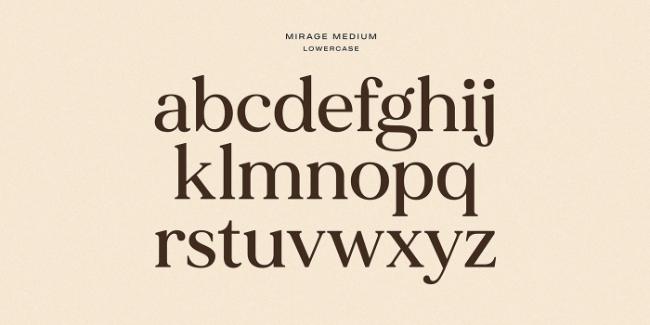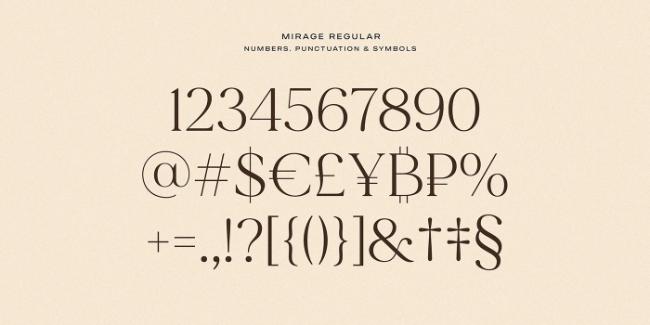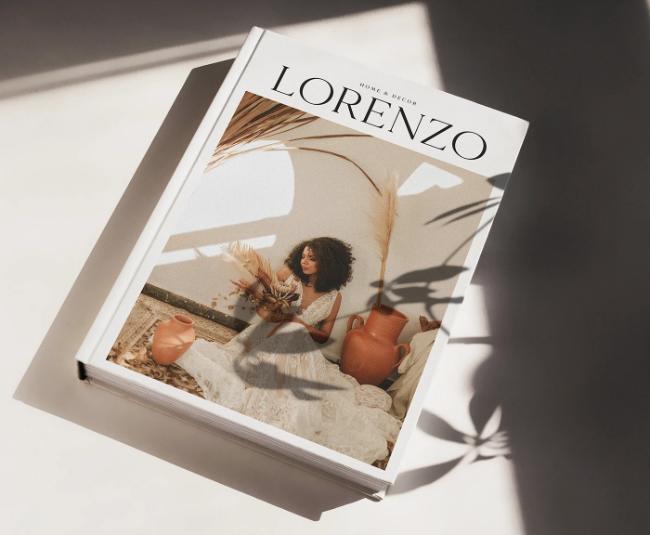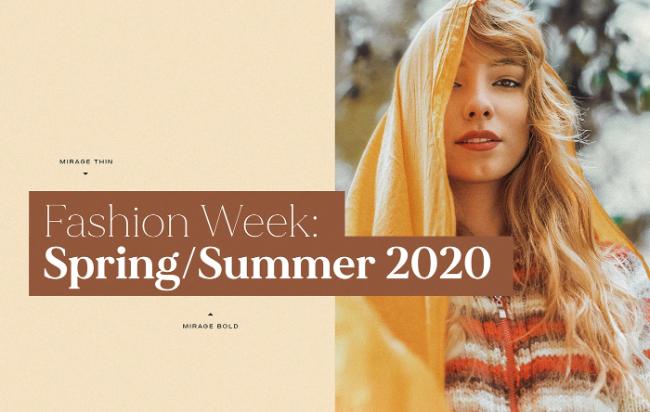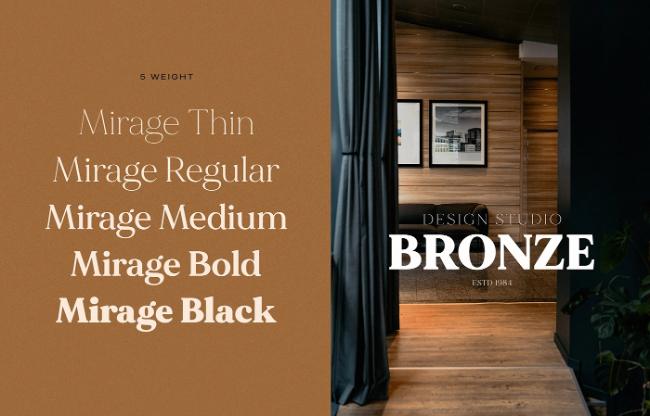
Mirage font is the perfect fusion of modern sophistication and timeless beauty, making it a favorite among designers seeking to elevate their work with subtle elegance. Whether you’re crafting high-end branding, editorial layouts, or wedding invitations, Mirage brings a luxurious feel with its graceful curves and refined letterforms.
Designed with attention to detail, Mirage is often described as a high-contrast serif or display typeface that balances classic calligraphy with contemporary flair. Its tall x-height, sharp serifs, and thin strokes lend it an air of professionalism, while still remaining approachable and artistic. From magazine covers to social media graphics, the Mirage font performs beautifully both in print and digital formats.
Inspired by vintage editorial typography but adapted for modern usage, Mirage is especially suited for fashion, beauty, and lifestyle projects. Available in various weights and often paired with elegant script fonts, it’s a versatile option for designers looking to make a statement. If you’re searching for a font that combines aesthetic appeal with practical design use, Mirage is a standout choice.